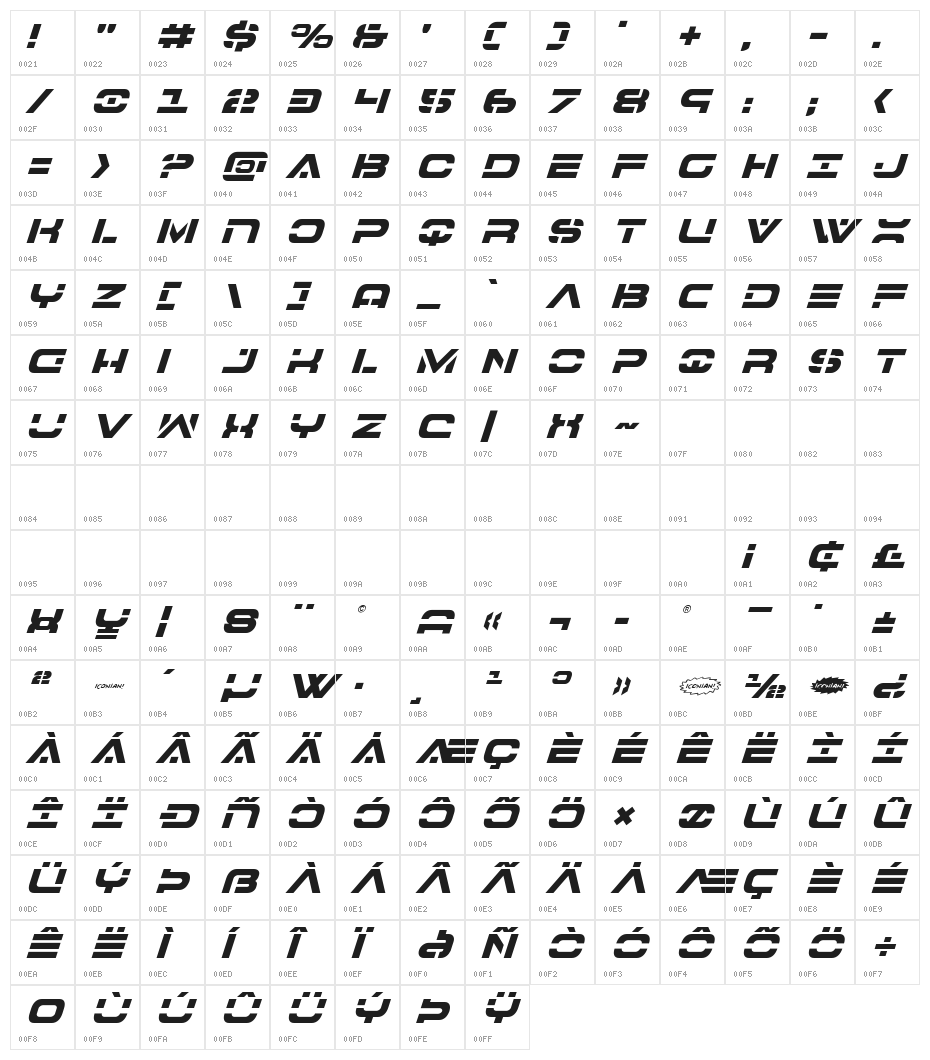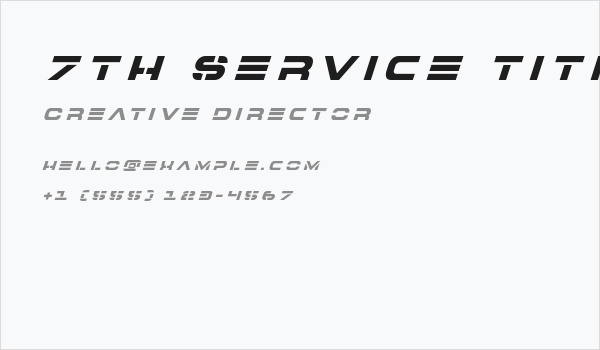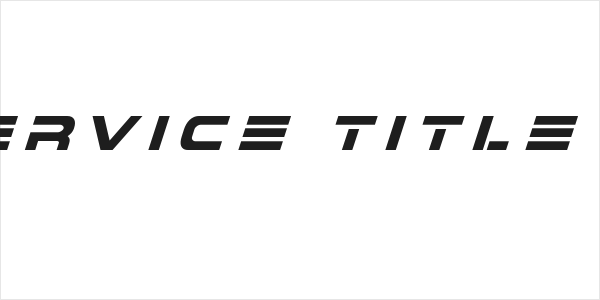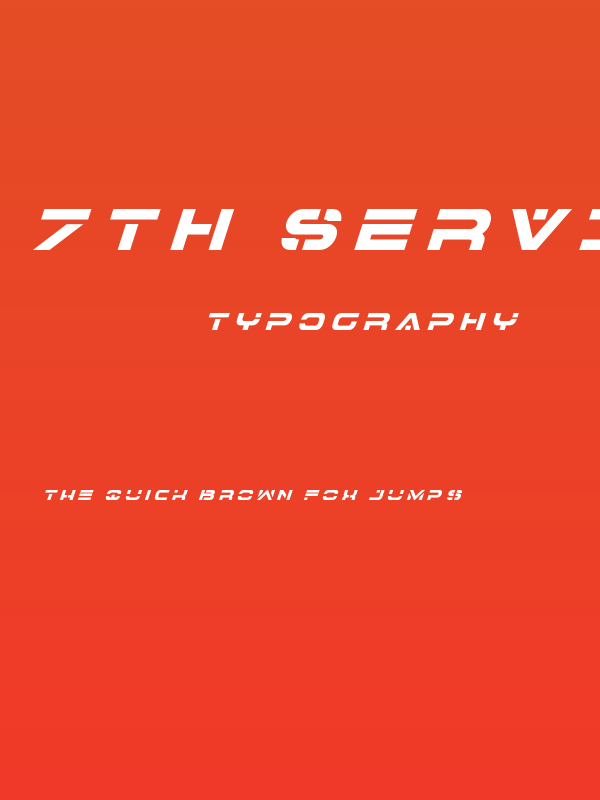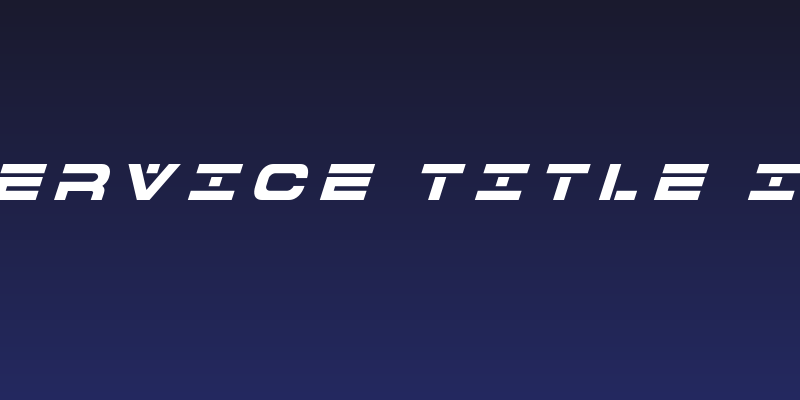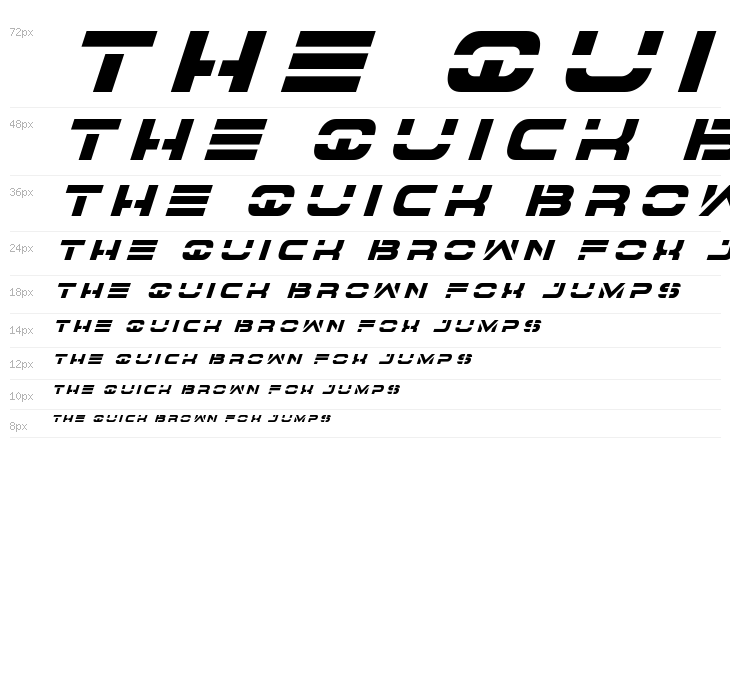
7th Service Title Italic Font
7th Service Title Italic Description
This font features a bold, futuristic design with a strong emphasis on geometric shapes and angular lines. The characters are italicized, giving them a dynamic and forward-leaning appearance. The uppercase letters are distinct with sharp edges and cut-out sections, creating a sense of movement and modernity. The lowercase letters maintain the same stylistic elements, ensuring consistency throughout the typeface. Numbers and special characters are designed with the same bold and angular aesthetic, making them stand out. This font is ideal for projects that require a modern, tech-inspired look.